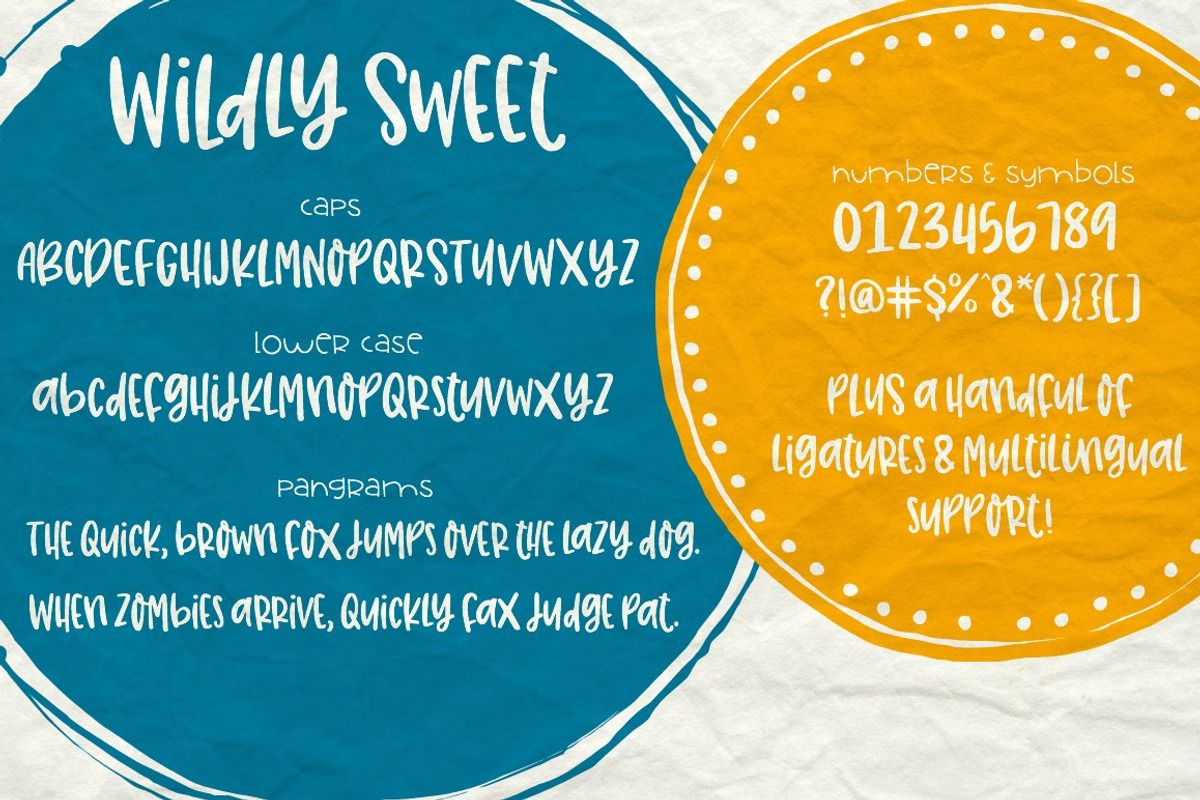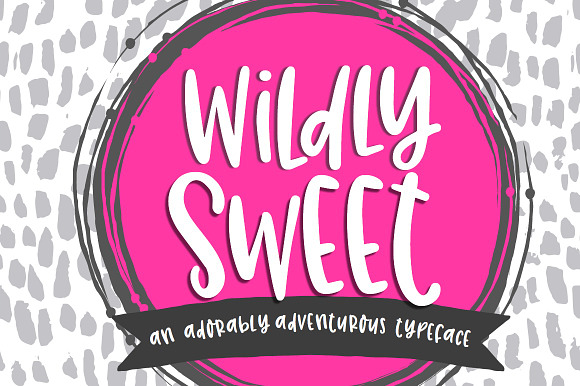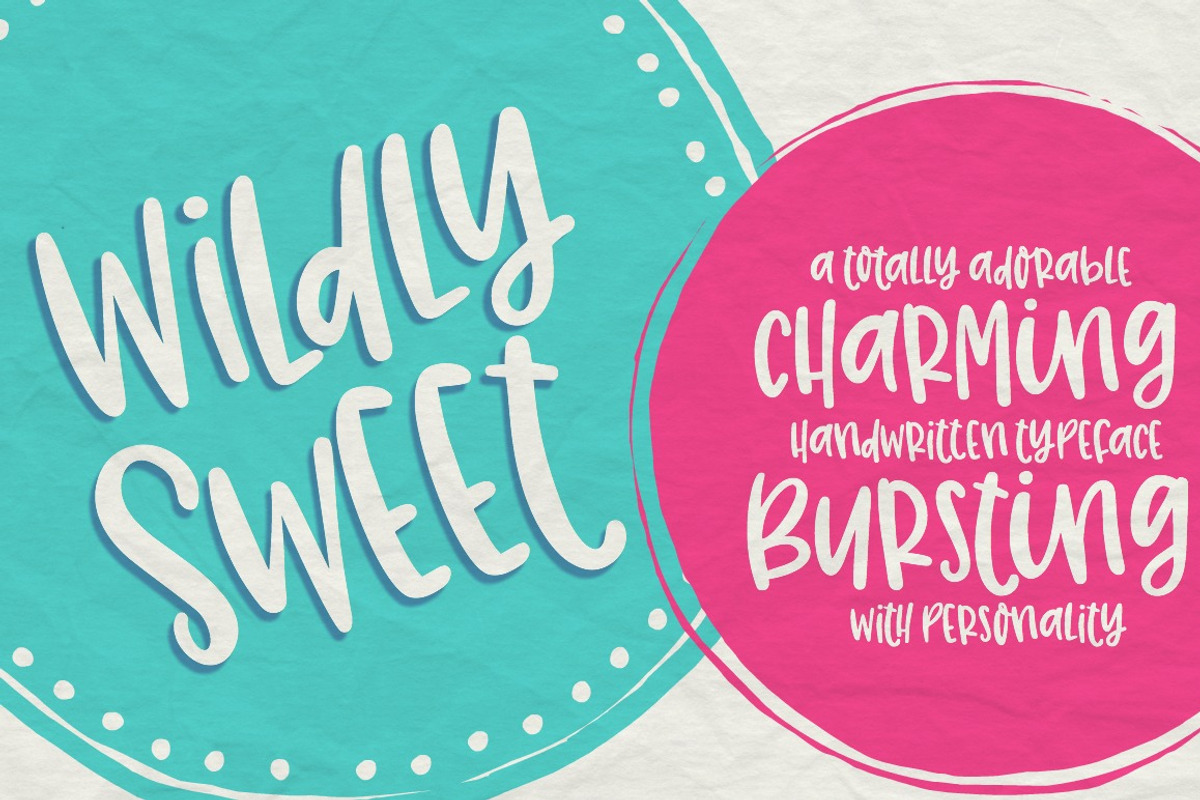
Wildly Sweet Handwritten Font
Wildly Sweet is a fun and feminine font that is bursting with ligatures and includes multilingual characters to support most European languages.
Wildly Sweet Handwritten Font by Sabrina Schleiger Design fits naturally into Branding, posters, packaging, typography.